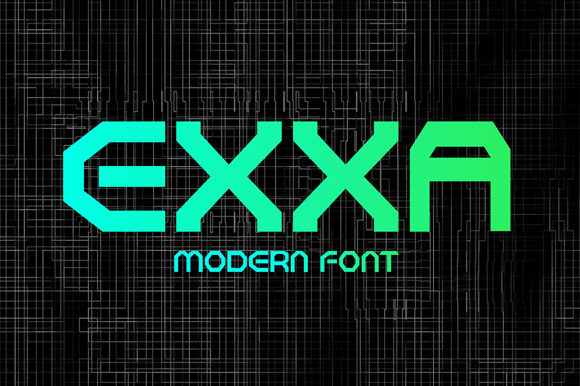
Prepare yourself for a typographic journey into the future with Exxa Font, an awe-inspiring display font that will propel your designs to the forefront of innovation.
Exxa Font is the brainchild of Dieza Art, a visionary font foundry renowned for its cutting-edge creations. This remarkable font embodies the essence of the future, with bold, geometric strokes that dance across the screen with an unmatched elegance.
Step into a realm where science fiction meets typography, where Exxa Font transforms your words into captivating headlines and otherworldly titles. Its thick, modern design commands attention, making it the perfect choice for films, games, and any project that demands a touch of the extraordinary.
Let Exxa Font ignite your imagination and transport your creations to new heights. Its sleek and streamlined curves evoke a sense of speed and technological advancement, while its sharp angles add an element of intrigue and excitement.
Whether you're crafting captivating posters, designing eye-catching logos, or simply adding a touch of futuristic flair to your projects, Exxa Font is the ultimate typographic weapon. Immerse yourself in the world of tomorrow, where bold typography reigns supreme.
Don't settle for ordinary fonts. Embrace the power of Exxa Font and unlock the boundless possibilities of the future. Let your designs soar to new heights with this extraordinary display font that will leave an unforgettable mark on your audience.